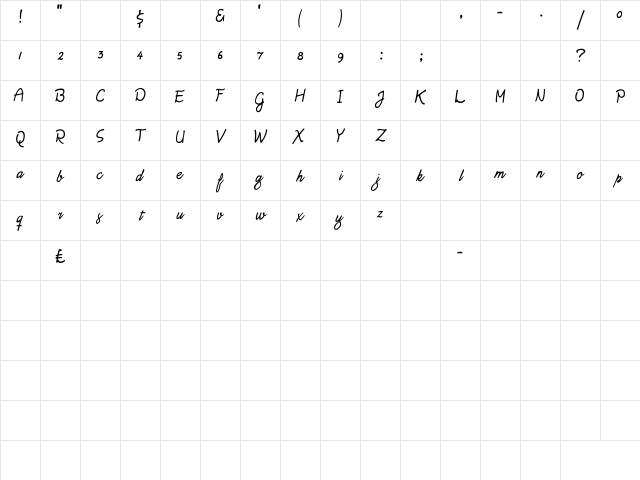
Daisy Script Regular
Daisy Script Family
Daisy Script Regular
Design Context for Daisy Script
Daisy Script flows with the natural rhythm of handwritten lettering, making it ideal for designs that call for warmth and personal expression.
Font Pairing: Combine Daisy Script with a simple geometric sans for maximum contrast - the tension between flowing curves and clean structure is a classic typographic pairing.
Pro Tip: Use Daisy Script for short runs of text - names, titles, or taglines. Extended body copy in script faces tires the eye quickly.